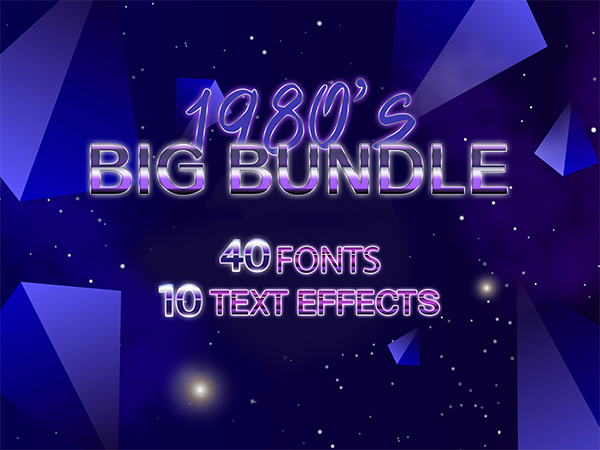
A good collection of high-quality fonts is always difficult to find especially when you’re looking for retro and vintage font styles. For hard times like these, we have got you a special collection. Look no further other than –
The 1980’s Big Bundle Of 40 Fonts & 10 Retro Font Styles
This bundle is perfect to add a timeless look to your designs be it social media banners, flyers, branding templates, or more.. It features some of the best hand-picked styles that you can use to add a classy and elegant flair to your designs.
List Of 40 Fonts Included In The 1980’s Big Bundle:
1. Agroxo regular
2. Astrantia-Regular
3. Biosso regular
4. Biotia regular
5. Butase regular
6. Cacter regular
7. Citree regular
8. Cyclamen-Regular
9. Dianella-Regular
10. Foodia regular
11. Fragu regular
12. Geranium-Regular
13. Glerburn-Regular
14. Grosol regular
15. Groxo regular
16. Hellia regular
17. Hepatica-Regular
18. Honene
19. Humis regular
20. Krinbert-Regular
21. Lonium
22. Monoxo regular
23. MorningGlori-Regular
24. Myces regular
25. Mycosa regular
26. Nitumn regular
27. Pelargonium-Regular
28. Phytab
29. Pisumo regular
30. Pomica regular
31. Pomosa regular
32. Poteny regular
33. Ricoto regular
34. Silvermound-Regular
35. Trosum regular
36. Tyrosa regular
37. Tyrost regular
38. Umaria regular
39. Vinene regular
40. Volaxa regular